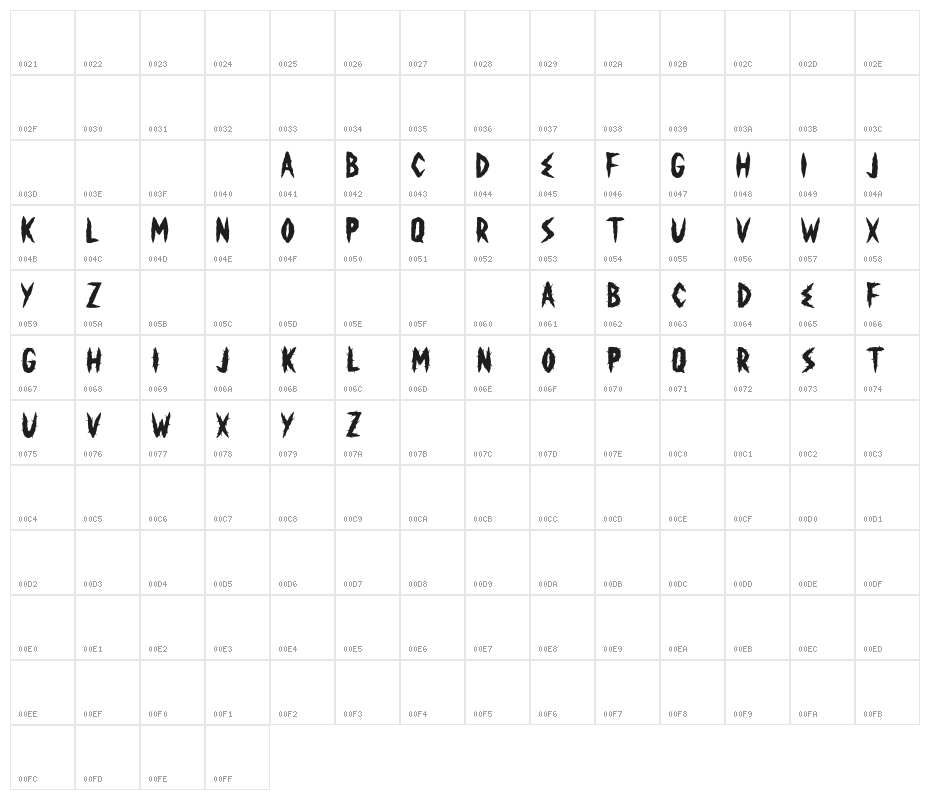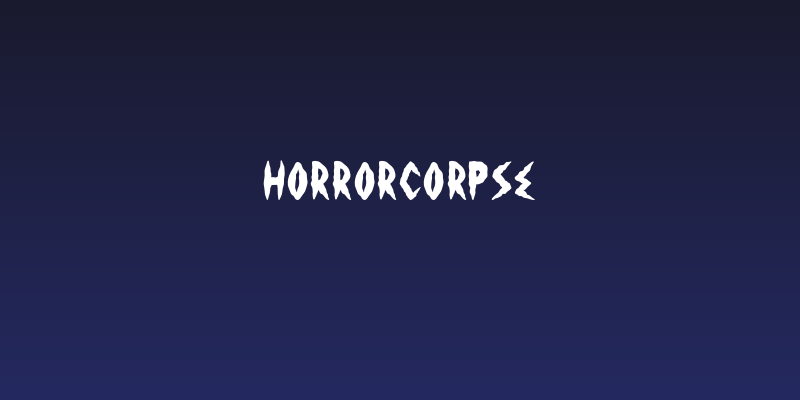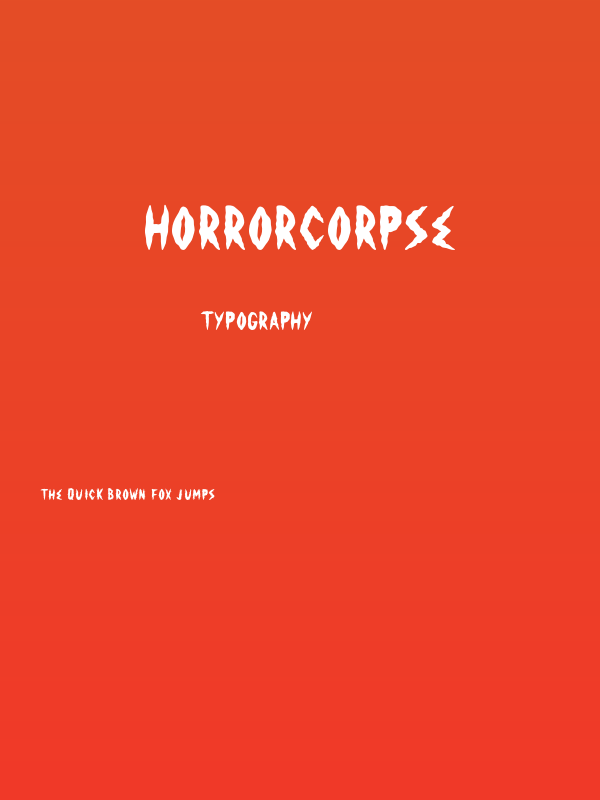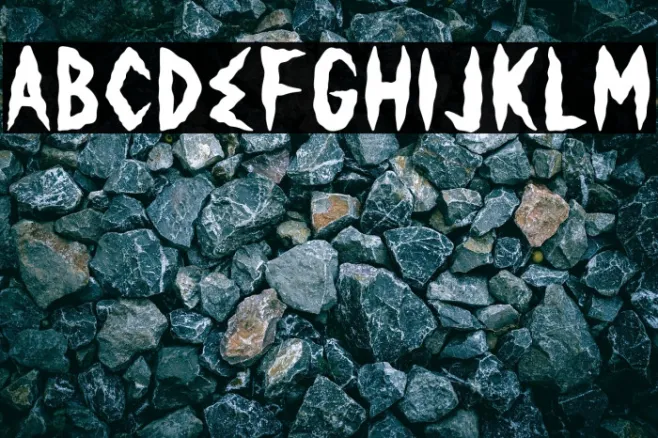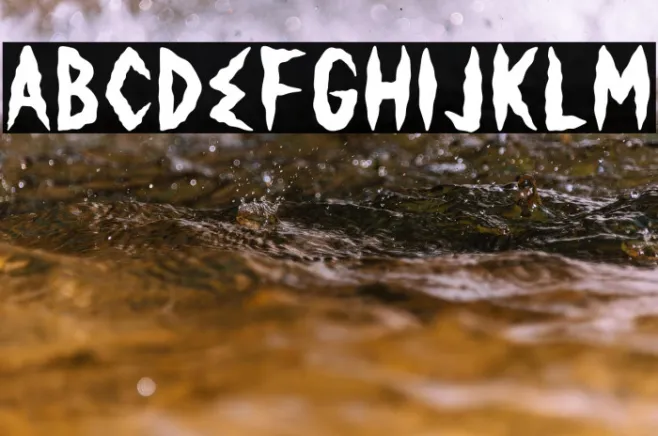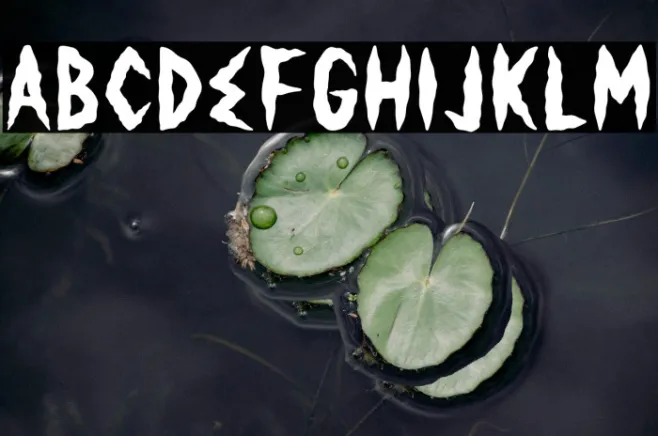
HorrorCorpse Font
HorrorCorpse Description
This font features a jagged, eerie design that evokes a sense of horror and unease. Each character appears as if it has been torn or clawed, with sharp, irregular edges that give it a chaotic and unsettling appearance. The bold, thick strokes enhance its dramatic impact, making it ideal for creating a spooky or ominous atmosphere. The uppercase and lowercase letters maintain a consistent style, with each character uniquely distorted to add to the overall horror theme. The numbers and special characters follow the same design principles, ensuring a cohesive look across all elements.
| Overall Style | Horror, Spooky, Dramatic |
| Use Case | Headlines, Posters, Themed Events |
| Proposed Projects | Ideal for Halloween-themed designs, horror movie posters, haunted house flyers, and spooky event invitations. |